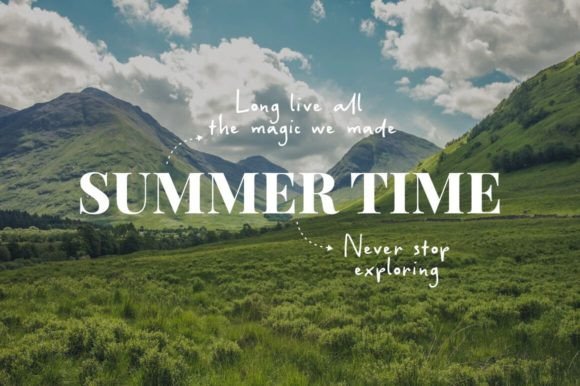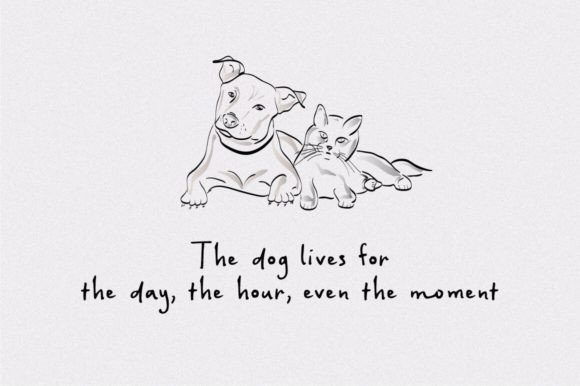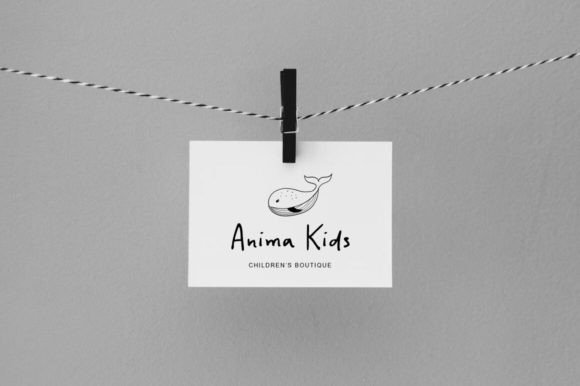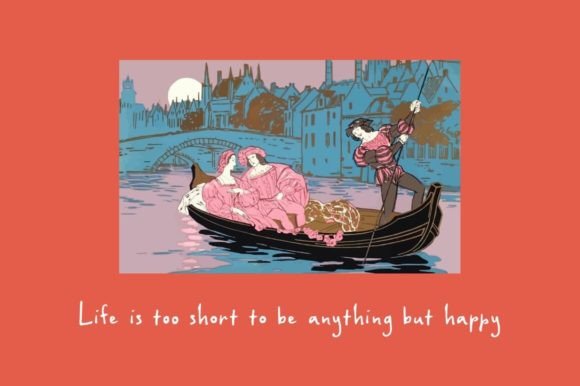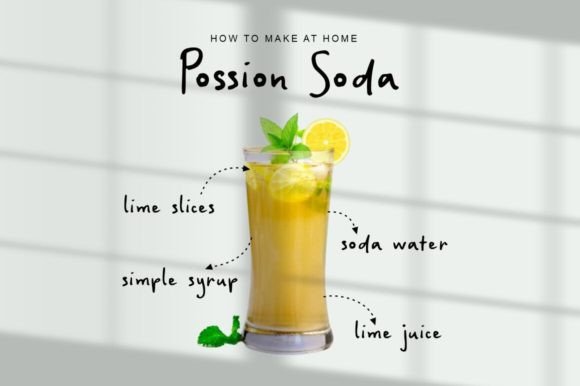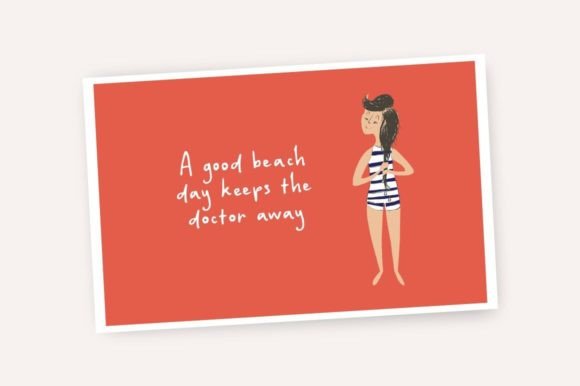
Introduction to Little Ruby Font
Introducing Little Ruby.
It is a cute, playful handwritten font with a refreshing and vibrant aesthetic This type of font is perfectly made to be applied especially in logos, headlines, signage, and other various formal forms such as invitations, labels, logos, magazines, books, greeting/wedding cards, packaging, fashion, makeup, stationery, novels, labels, or any advertising purpose.